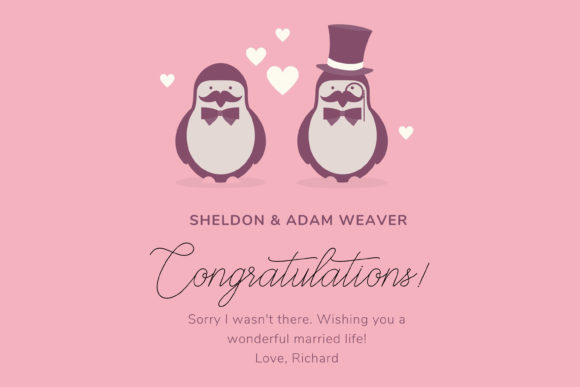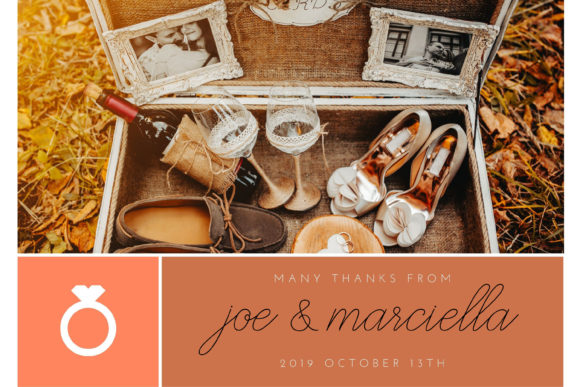
Amonia Font
db-ku.com - Script & Handwritten -- Amonia is a vintage styled handwritten font that will make your work stand out through its elegant and curvy lines. It is perfect for product packaging, branding project, magazine covers, social media, wedding, or just used to express words above the background.